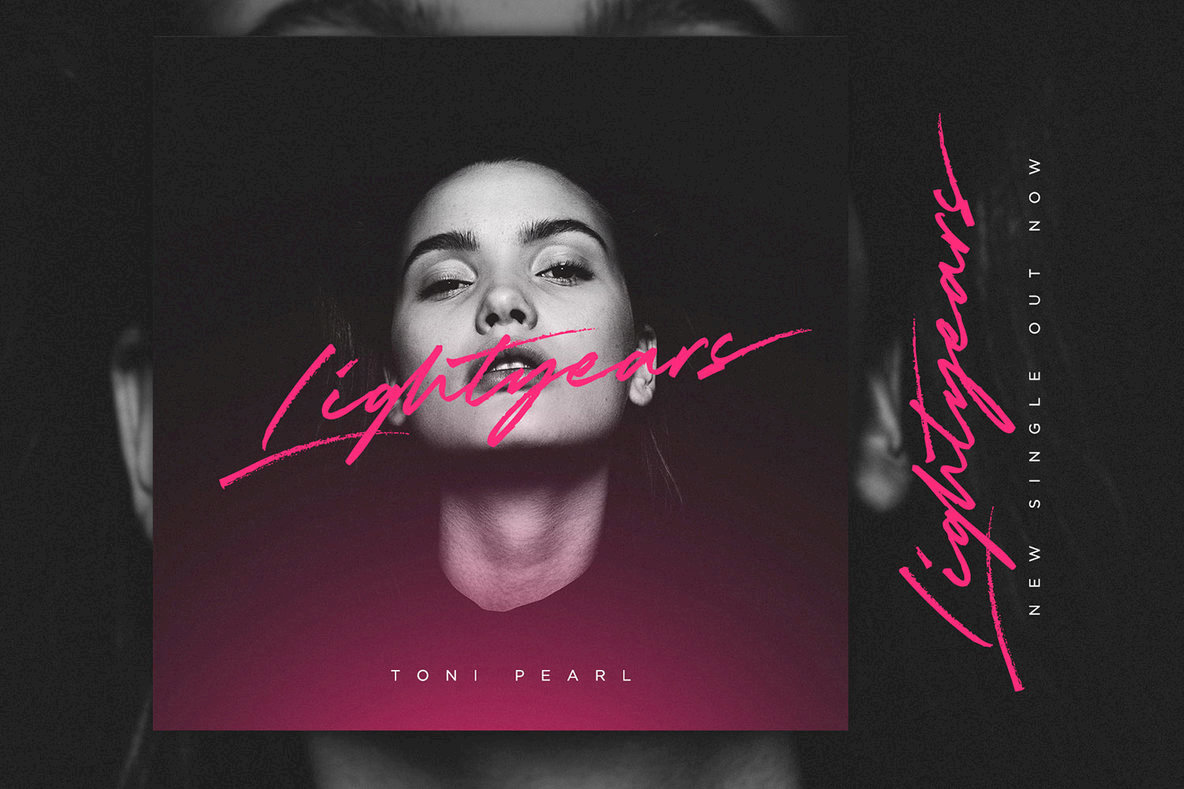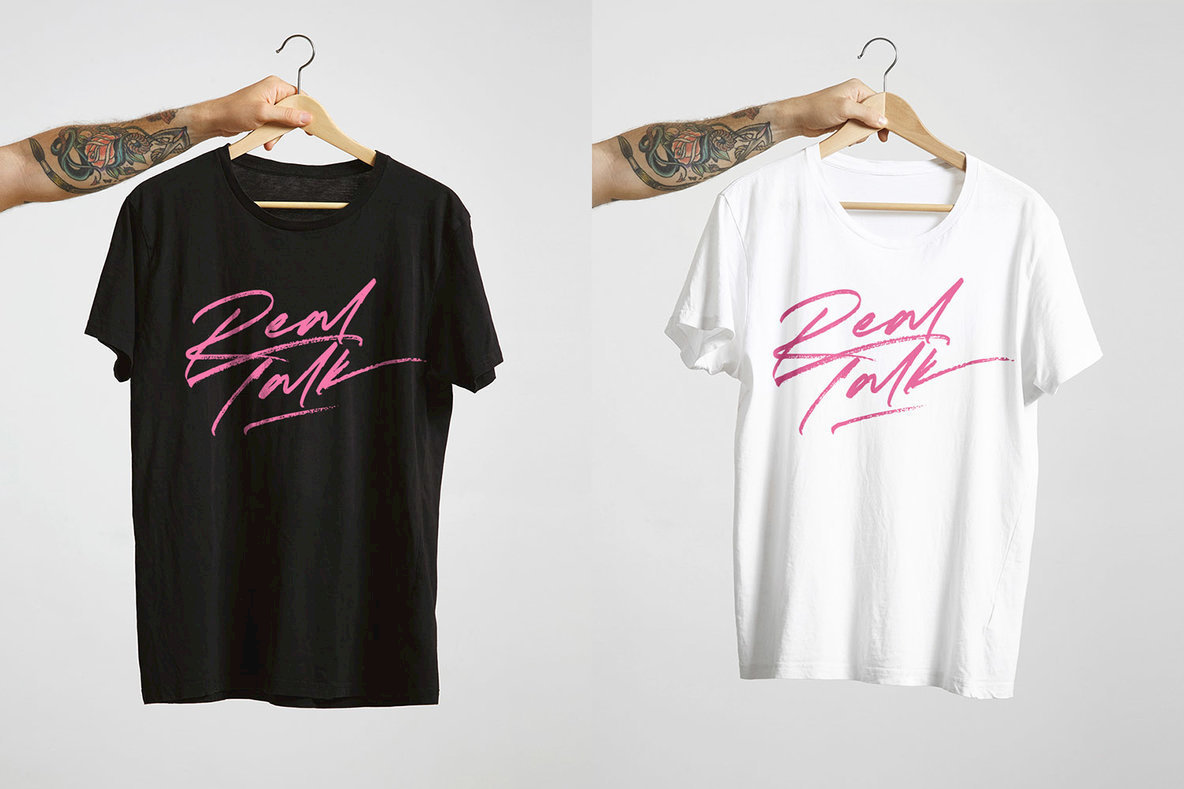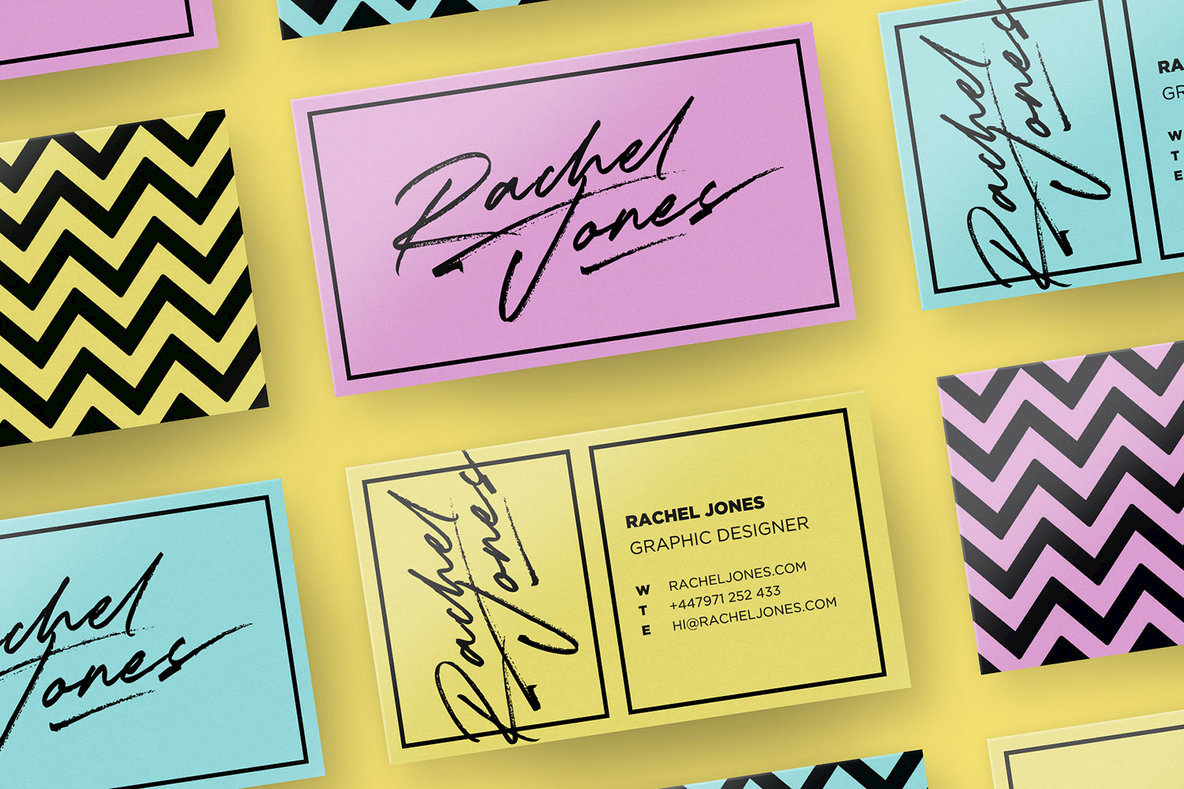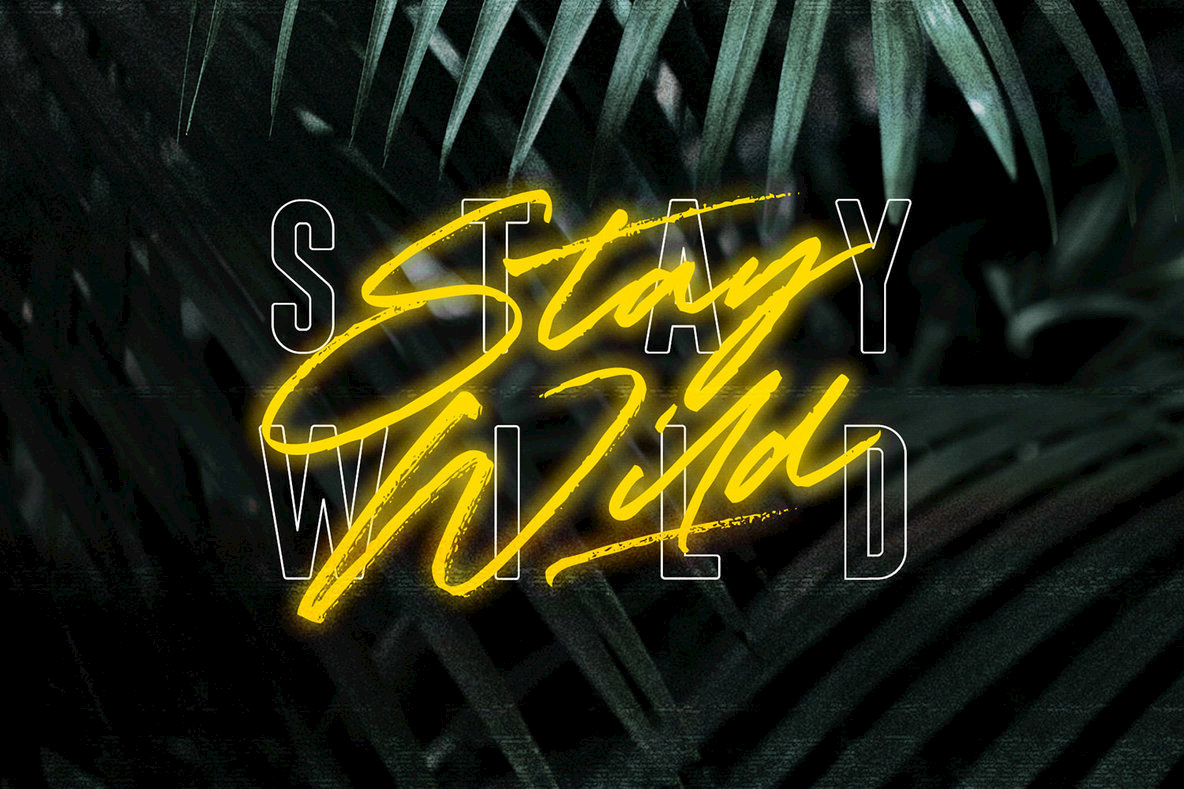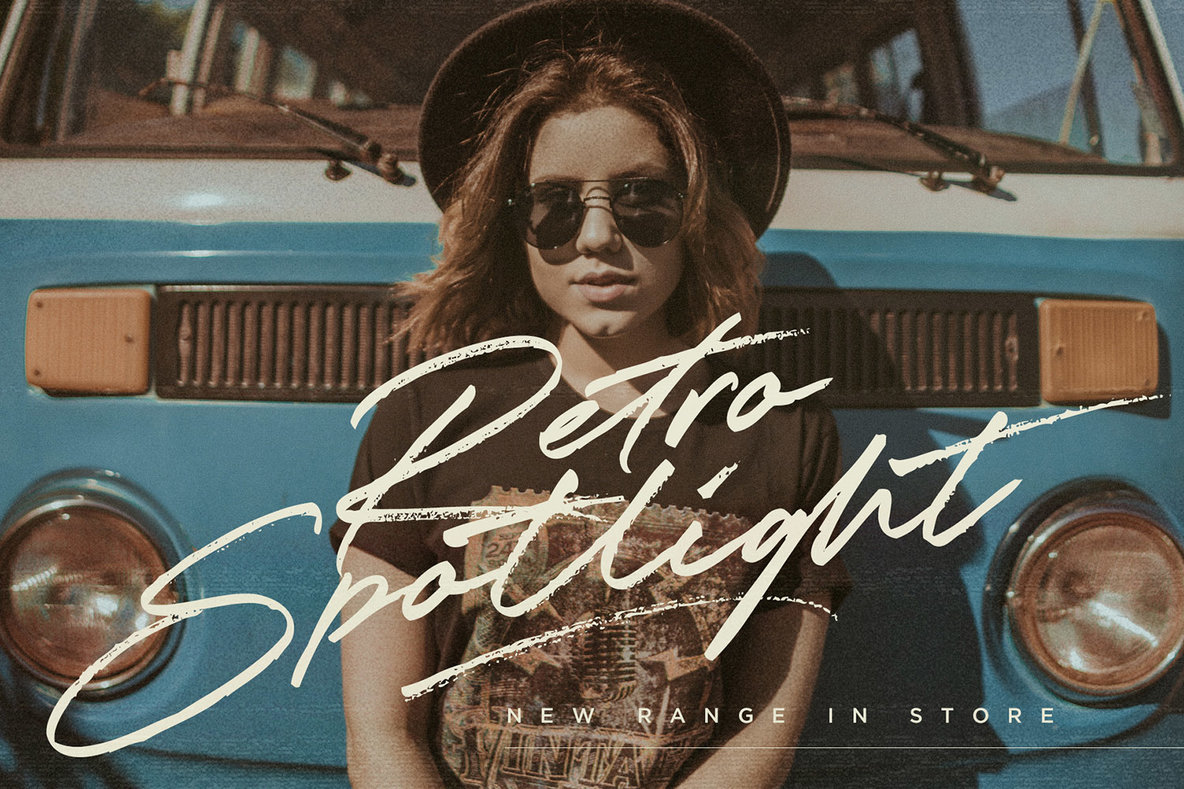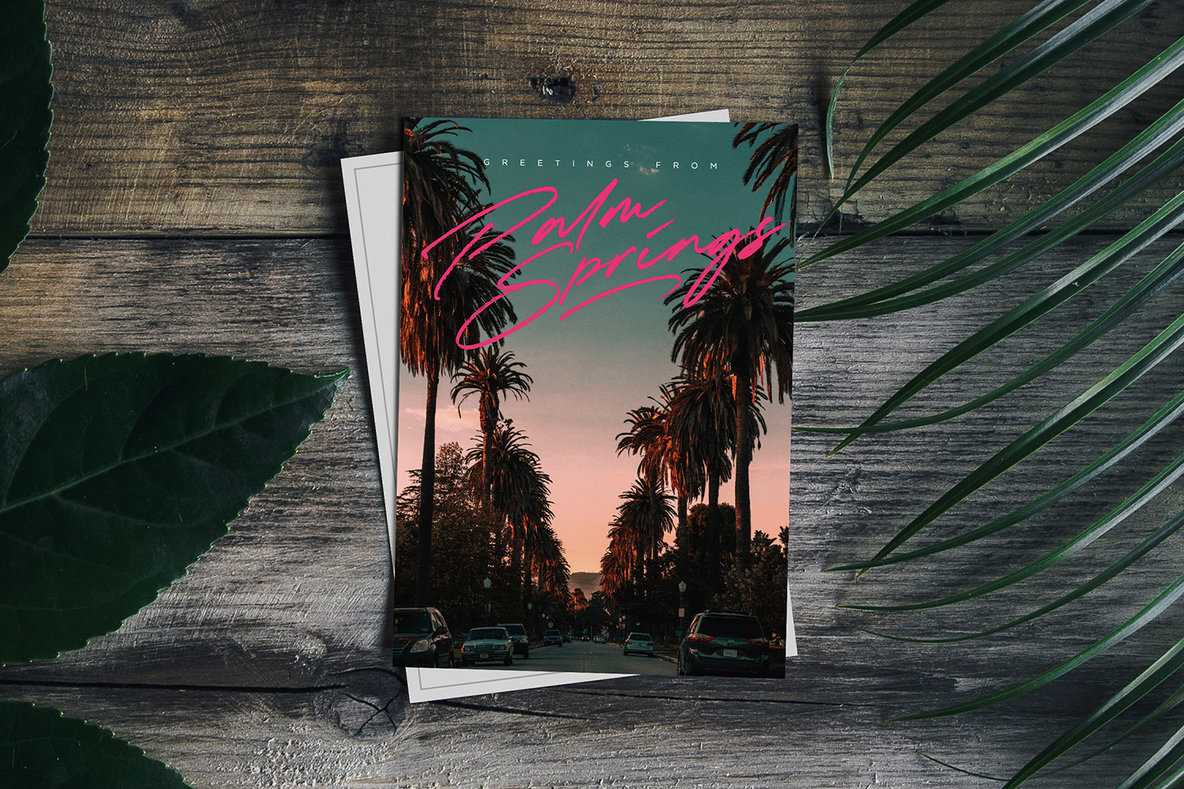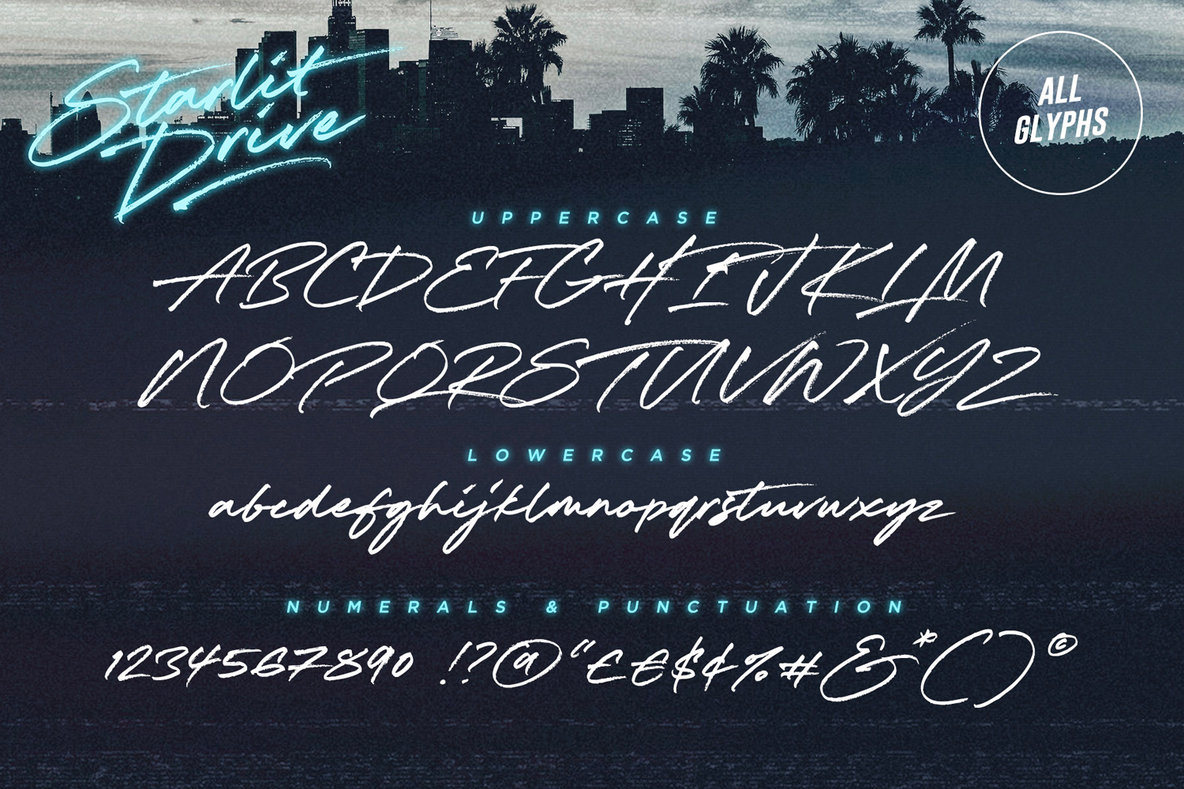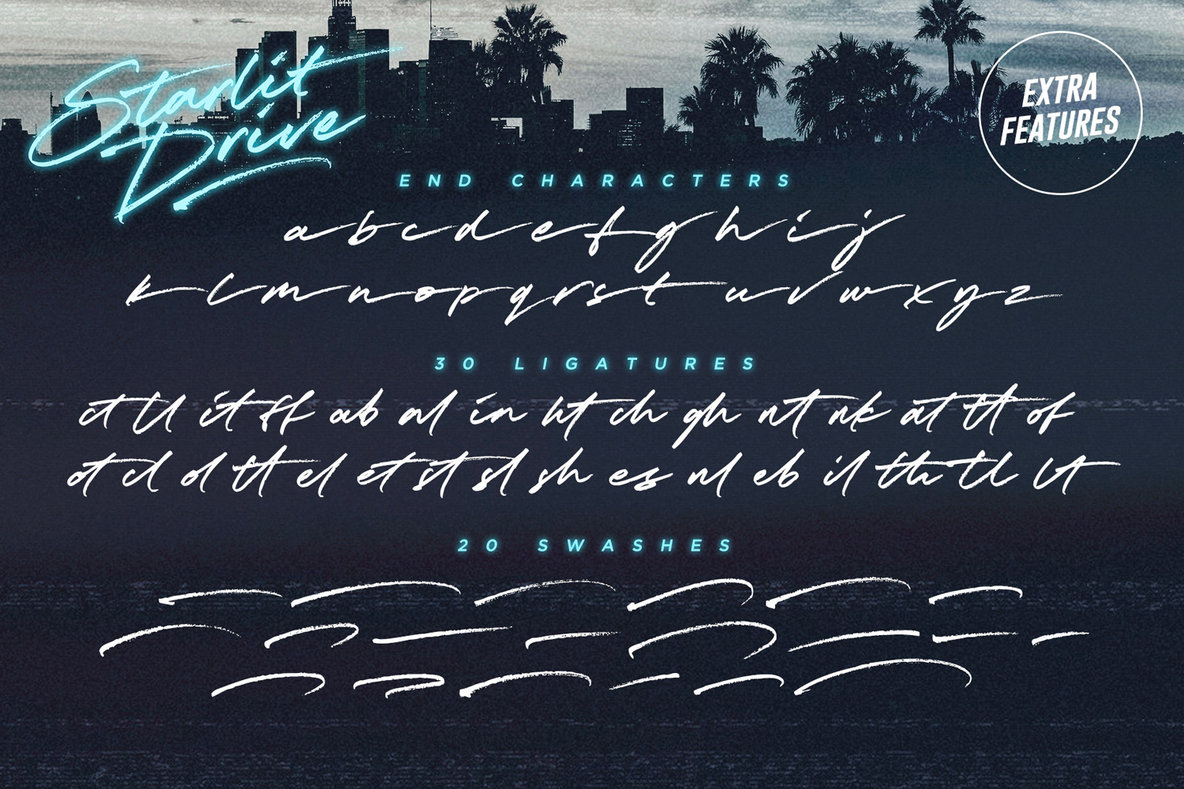
Starlit Drive Font
Get your aviators on and hit the road with Starlit Drive – a fast paced, stylish signature font with a retro edge. With swift strokes and authentic dry textures, it’s an irresistibly charismatic & confident font choice for a range of design projects.
1. Starlit Drive • A handwritten script font containing upper & lowercase characters, numerals and a large range of punctuation.
2. Starlit Drive Swash • Type any a-z character in this font to generate one of 20 swashes. These fast strokes are great for underlining your Starlit Drive text and adding some extra finesse to your lettering.
Ligatures • Are available for 30 lowercase character pairings when using the Starlit Drive font. Use these double-letters to help the text flow more naturally or for an additional layout option. These are accessible via software with opentype capability, by turning on ‘Discretionary Ligatures’, or via a Glyphs panel.
End Characters • Are available for all lowercase characters when using the Starlit Drive font. Use these characters at the end of your word to add a stylistic ‘end-swash’. These are accessible via software with opentype capability, by turning on ‘Stylistic Alternates’, or via a Glyphs panel.
Includes multilingual support for English, French, Italian, Spanish, Portuguese, German, Swedish, Norwegian, Danish, Dutch, Finnish, Indonesian, Malay